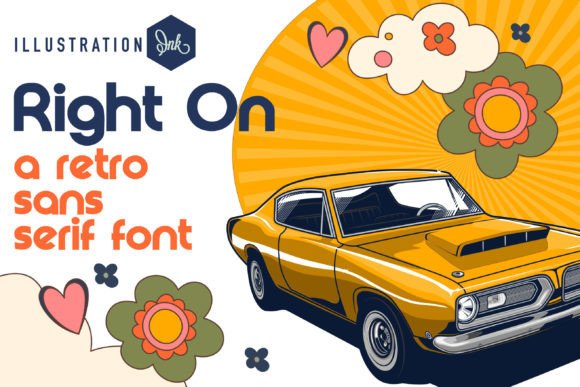
Step back in time and embrace the groovy vibes of the 1960s with Right On, the ultimate retro sans serif font that oozes charm and personality. Picture this: your designs adorned with the smooth curves and rounded edges of Right On, evoking the nostalgic spirit of an era known for its bold style and vibrant hues. Let your imagination run wild as you craft eye-catching logos, branding, and quotes that transport your audience to a time of peace, love, and bell bottoms.
With Right On, every letter is a work of art, meticulously designed to add a touch of uniqueness and beauty to your creations. Its soft curves dance across the page, creating a visual symphony that will captivate and mesmerize your viewers. Unleash the power of Right On and watch your designs come alive, speaking volumes without uttering a single word.
Imagine your designs adorned with Right On, the perfect font for capturing the essence of nostalgia and modernity. Its retro charm blends seamlessly with contemporary aesthetics, creating a timeless look that transcends generations. Whether you're a seasoned designer or just starting your creative journey, Right On is your gateway to creating designs that resonate with audiences of all ages.
So, dive into the world of Right On and let your creativity soar. Embrace the past while embracing the future, and let your designs tell a story that resonates with hearts and minds. With Right On by your side, the possibilities are endless - the only limit is your imagination.